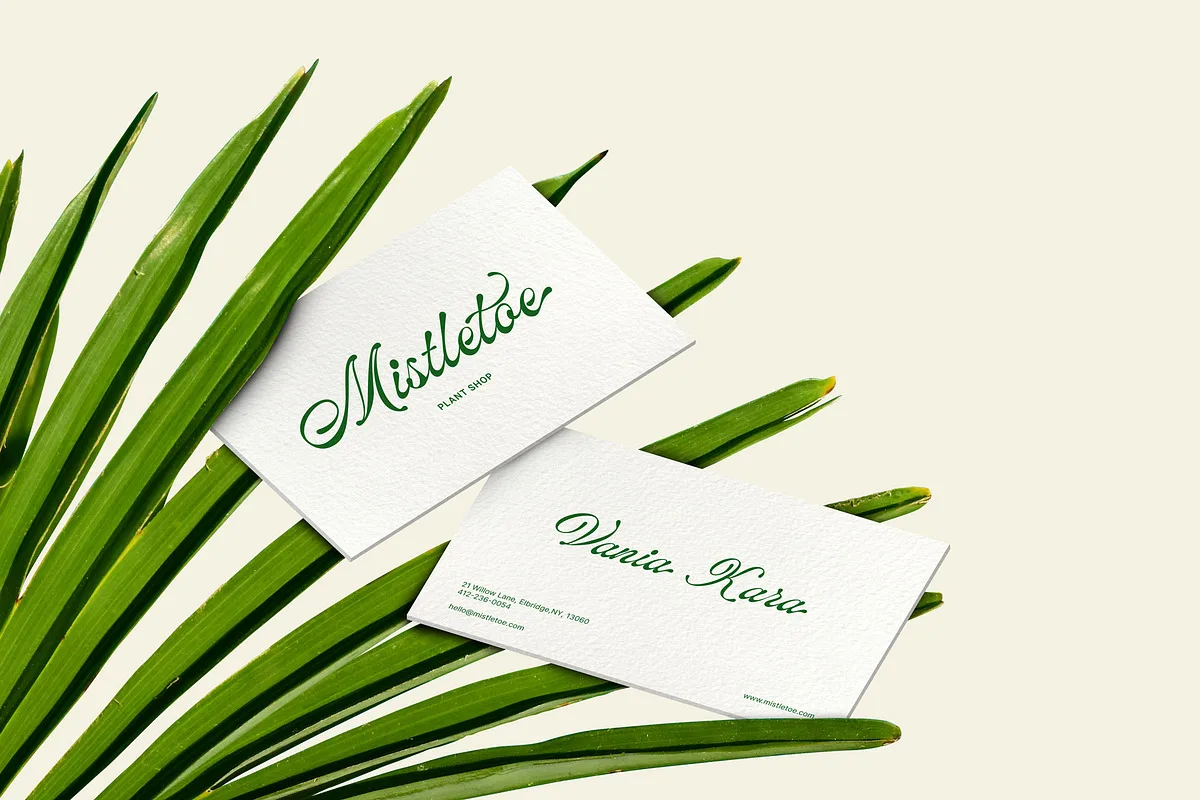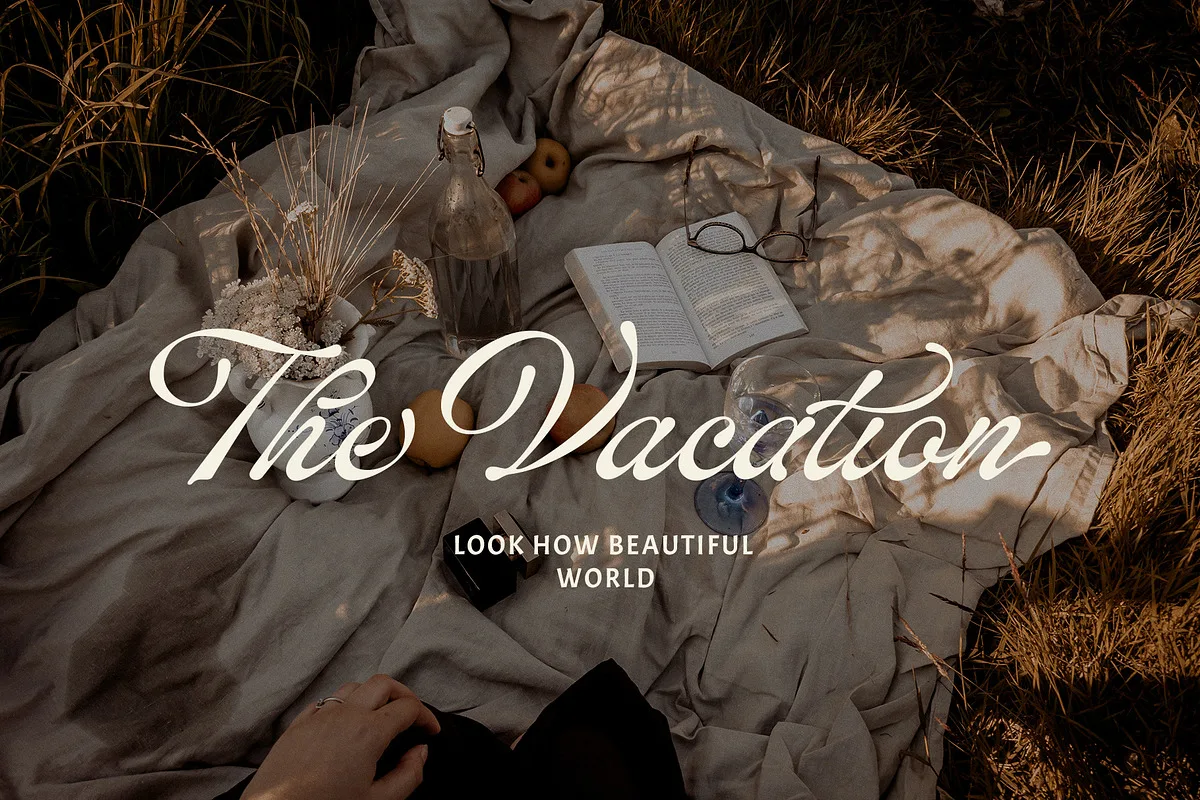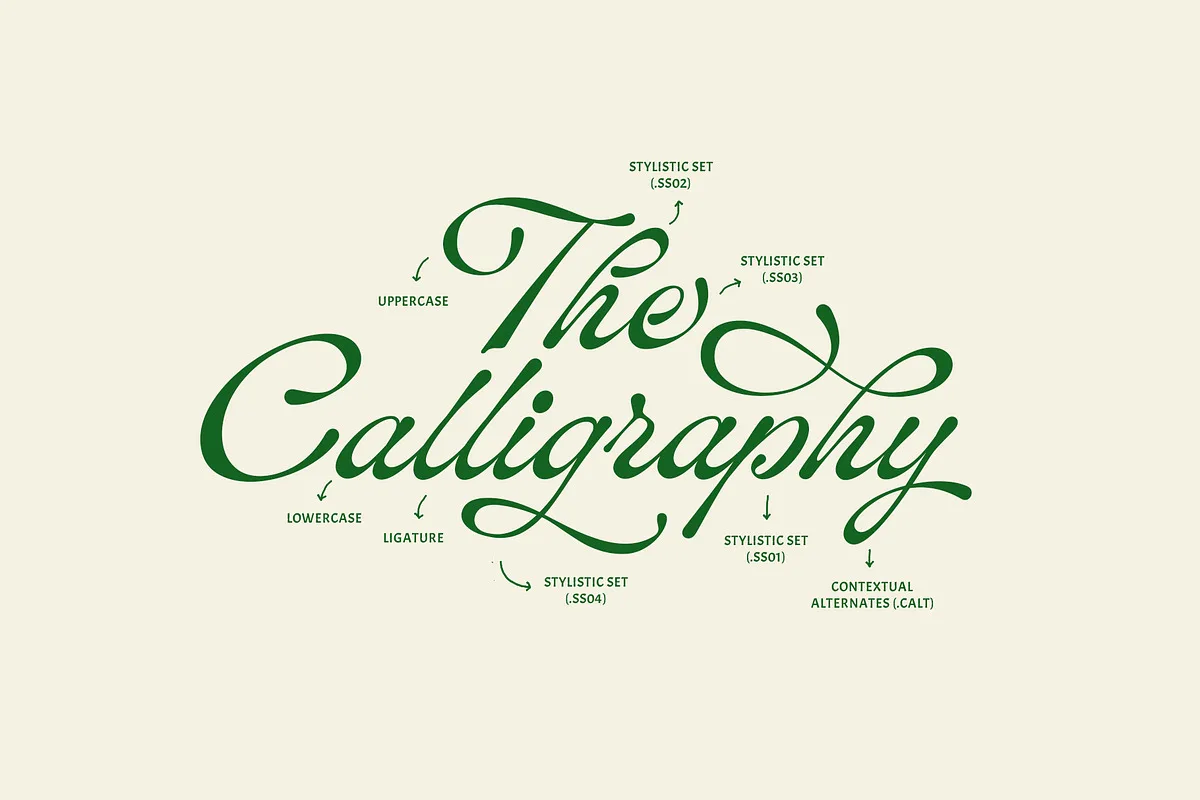
ED Lavonia is a classic script from Emyself Design, drawn after the kind of confident book handwriting you find in mid-century inscriptions rather than after modern brush lettering. The strokes are even, the slant is consistent, and the connections between letters are clean — which is what makes it read as “classy” instead of casual.
472 glyphs, and why that number matters
The headline specification is 472 glyphs including 90+ stylistic sets and ligatures, plus contextual alternates. In practice that means a single letter can have half a dozen drawn variants — a plain form for mid-word, a version with an entry stroke for the start of a word, an exit swash for the end, and several decorative options in between. Contextual alternates apply some of these automatically as you type, which is why a line set in ED Lavonia looks hand-written rather than stamped from a single set of letters.
Where ED Lavonia works
This is a display script: wedding stationery, logotypes, book covers, product packaging and editorial pull-quotes. Use it for a name, a title or a single line — never for a paragraph, and never in all caps, which severs the connecting strokes that hold the letterforms together. It pairs naturally with a quiet serif or a neutral sans; putting two decorative faces next to each other will make both look worse.
How many glyphs and alternates does ED Lavonia have?
472 glyphs in total, including more than 90 stylistic sets and ligatures plus contextual alternates. The contextual alternates apply automatically in OpenType-aware software; the remaining variants are reached through the glyphs panel.